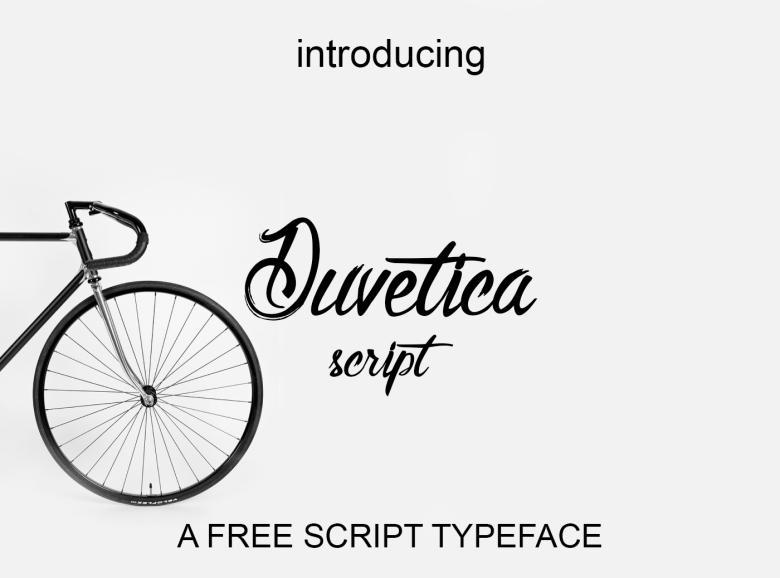
Duvetica Script Font
Continue to be a work from Polythene Designs. Duvetica Script Font modern script with a handmade calligraphy style. Duvetica Script perfect for greeting cards, magazine, branding, social media, print, packaging, and many more.